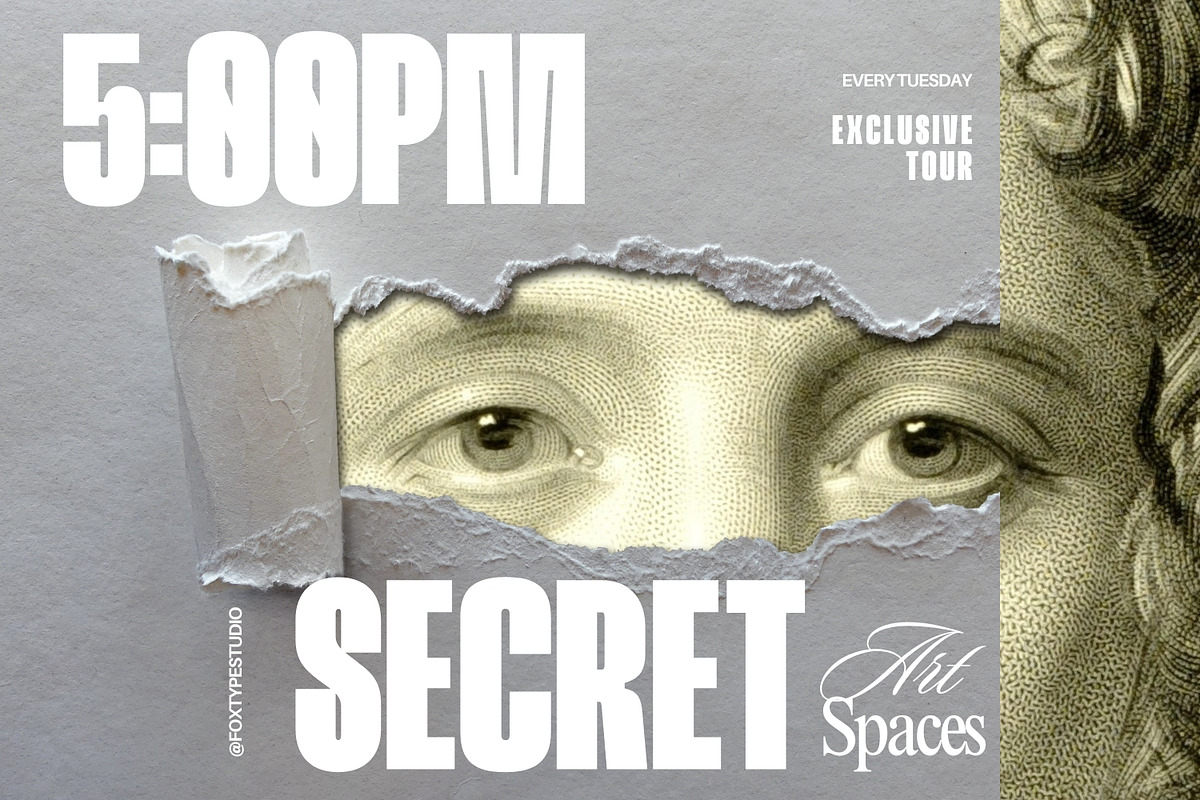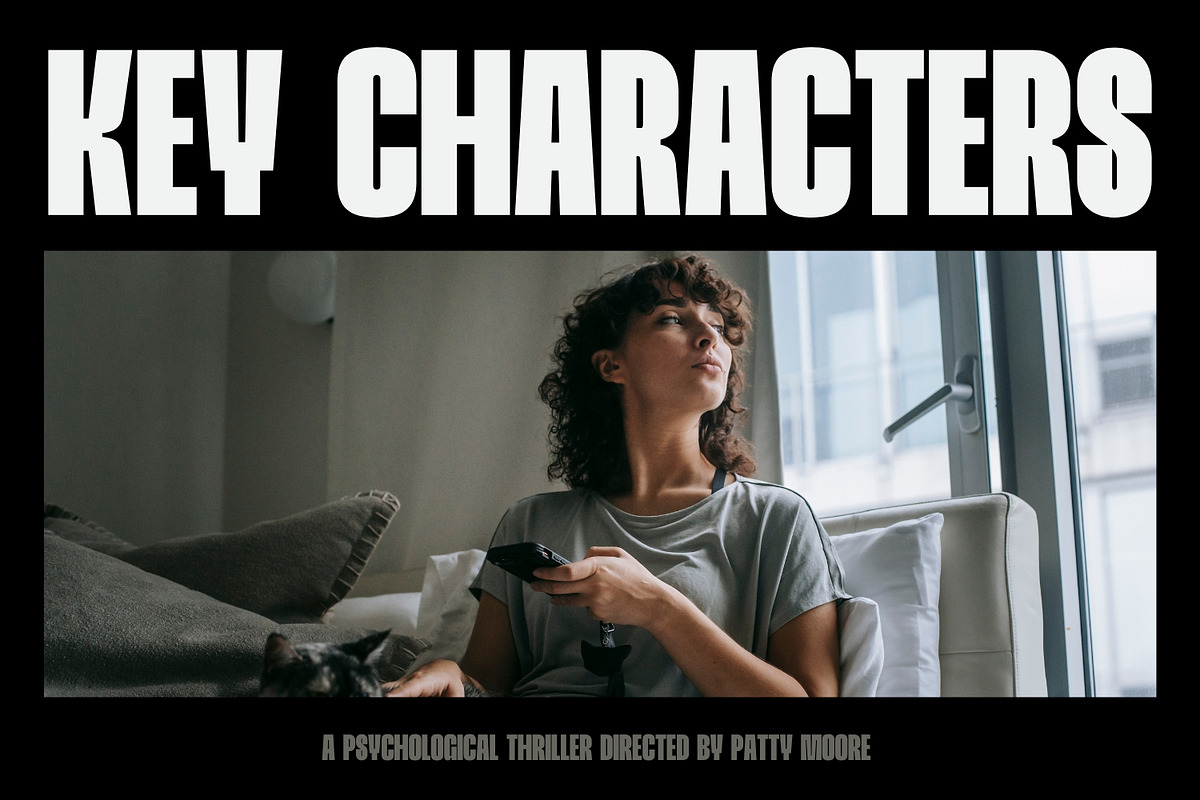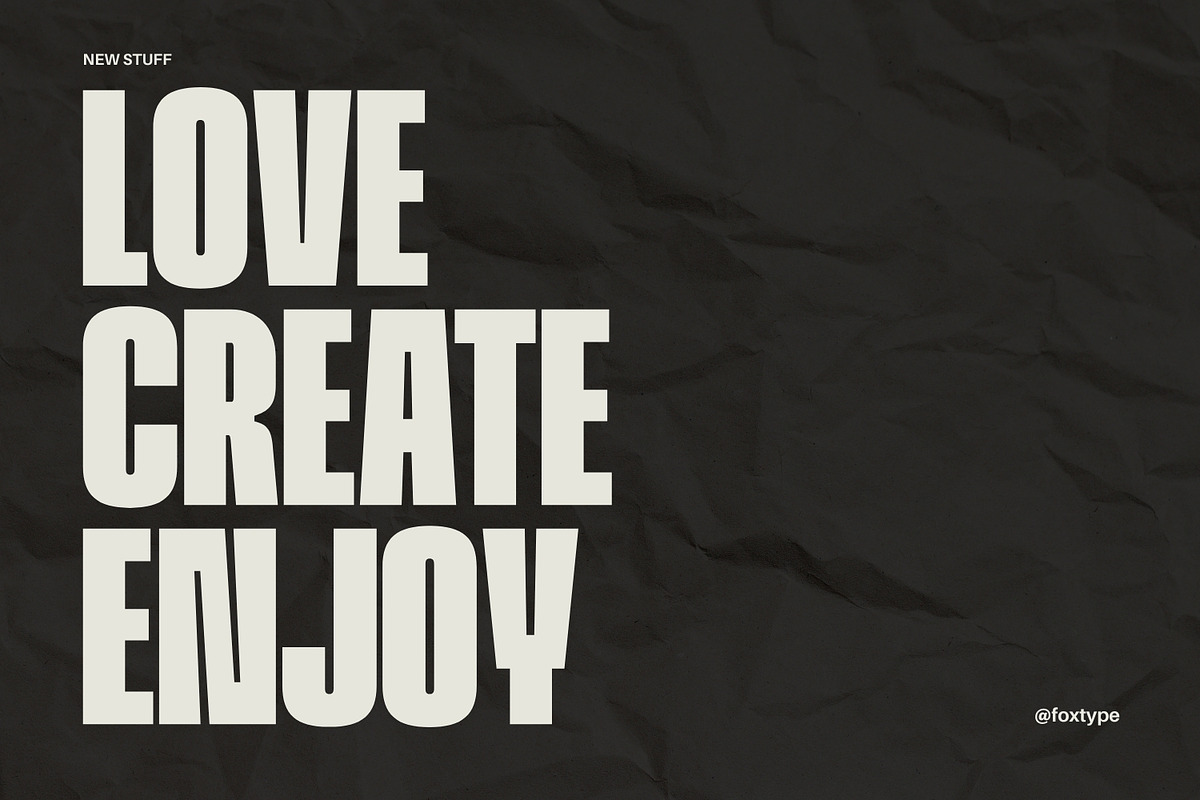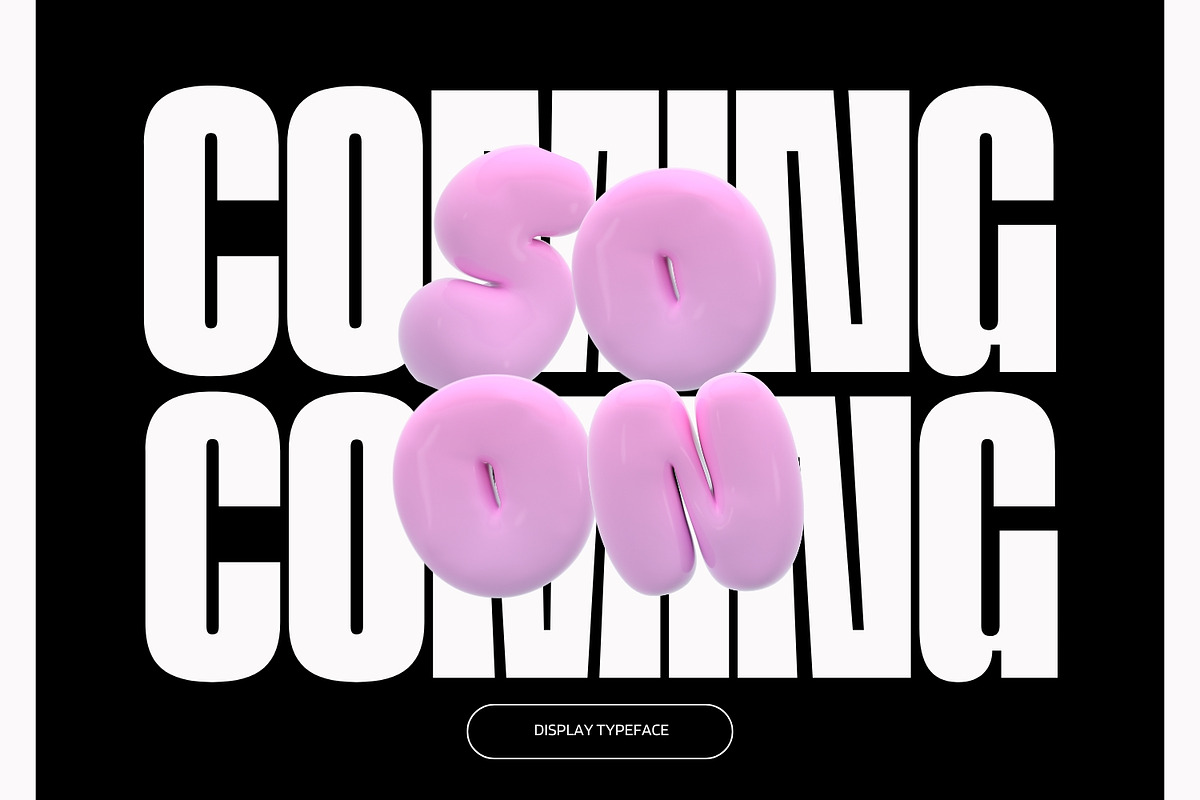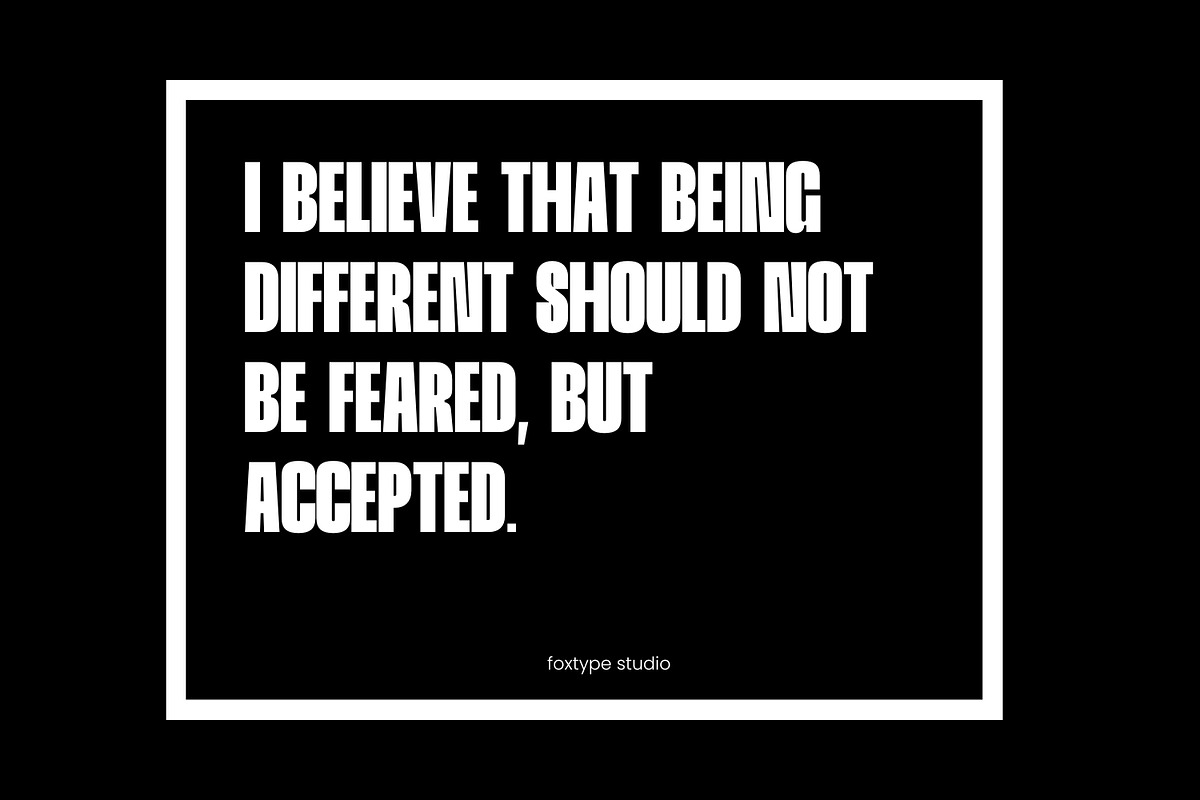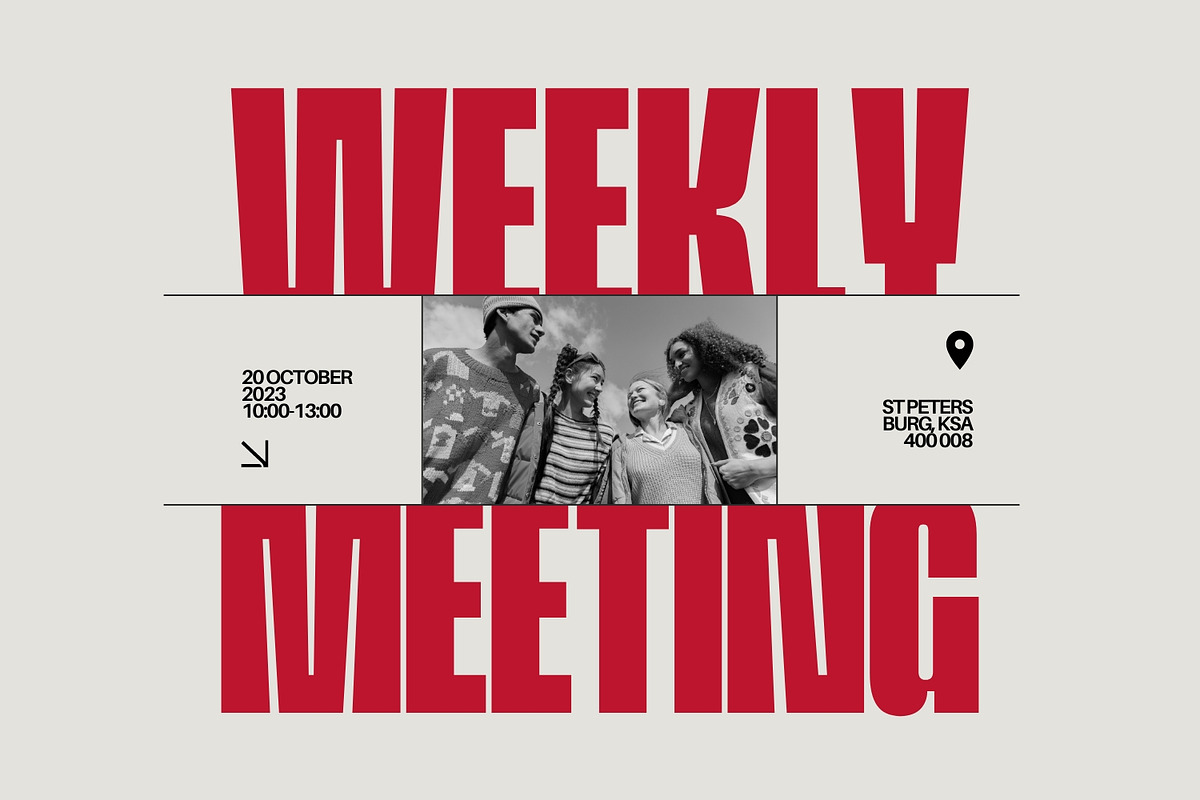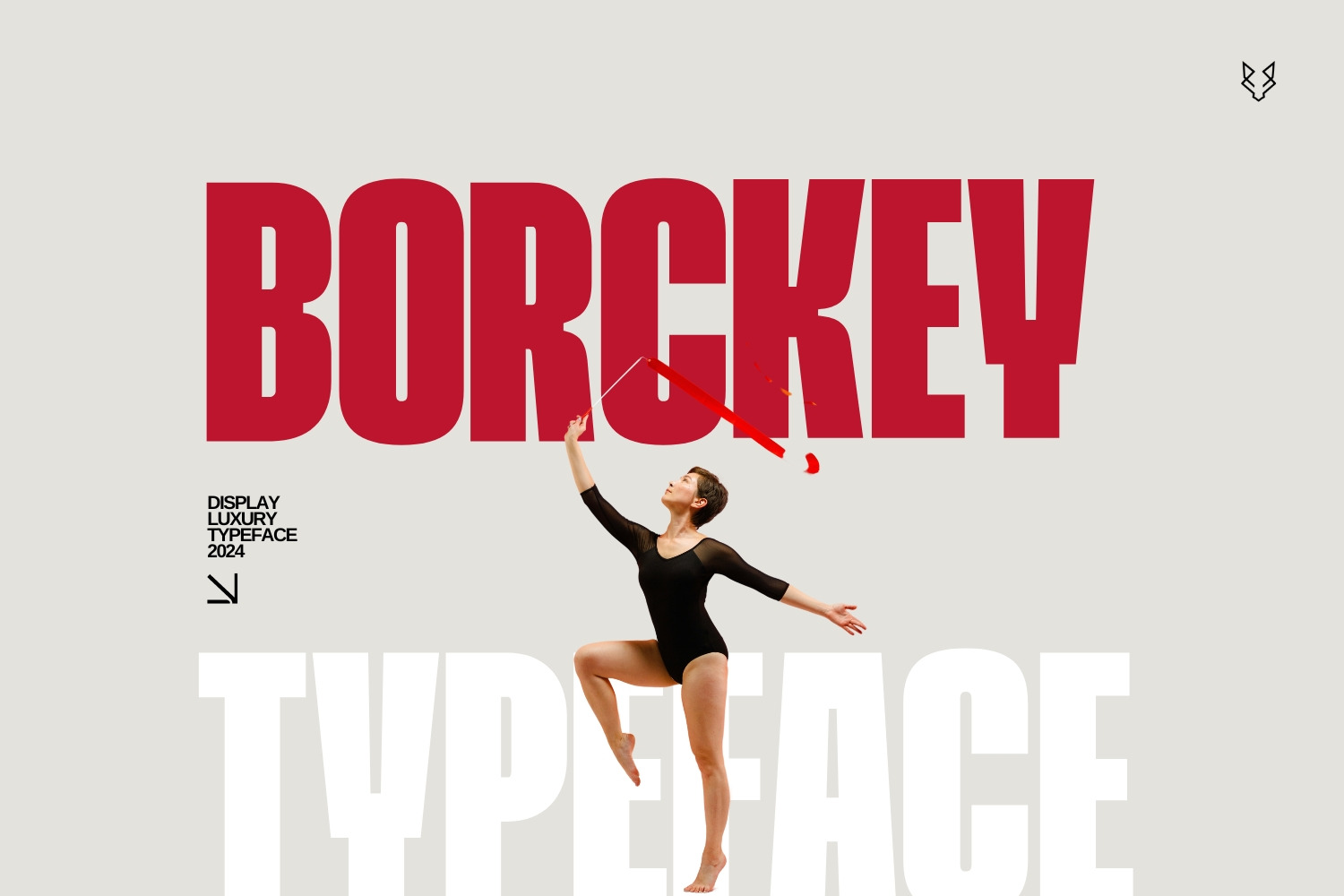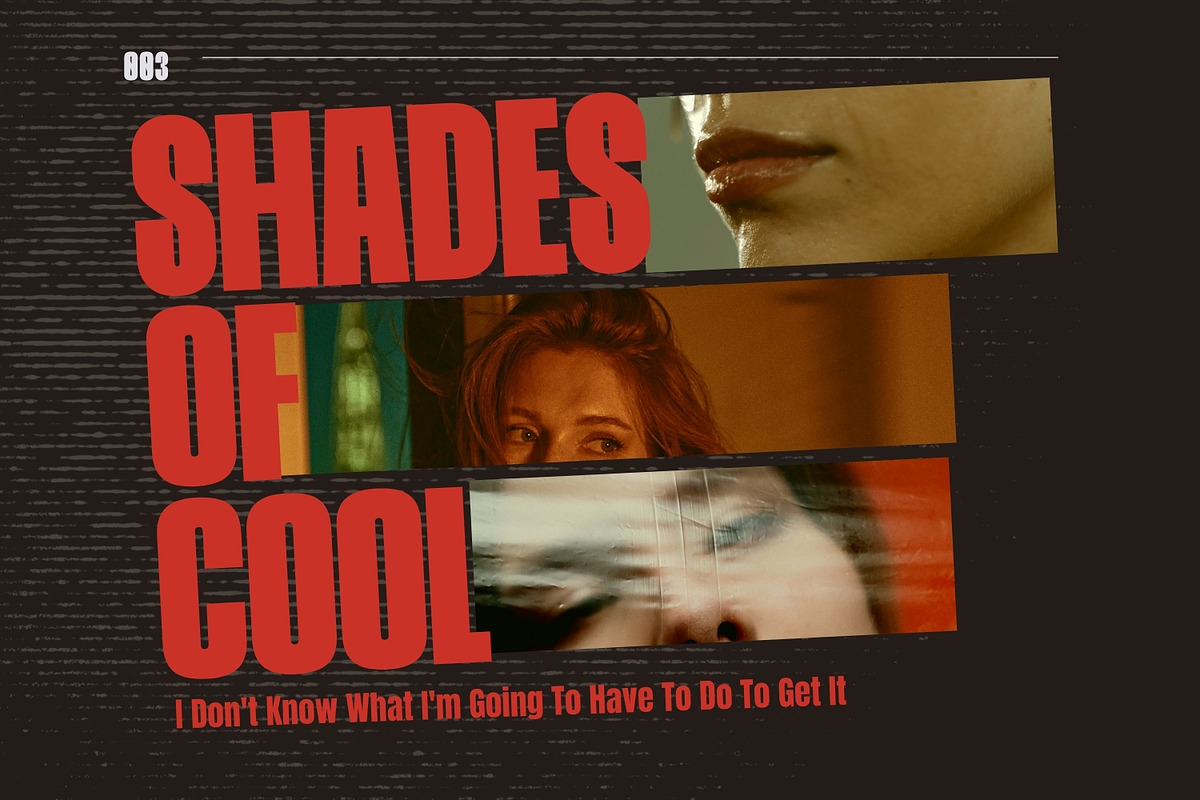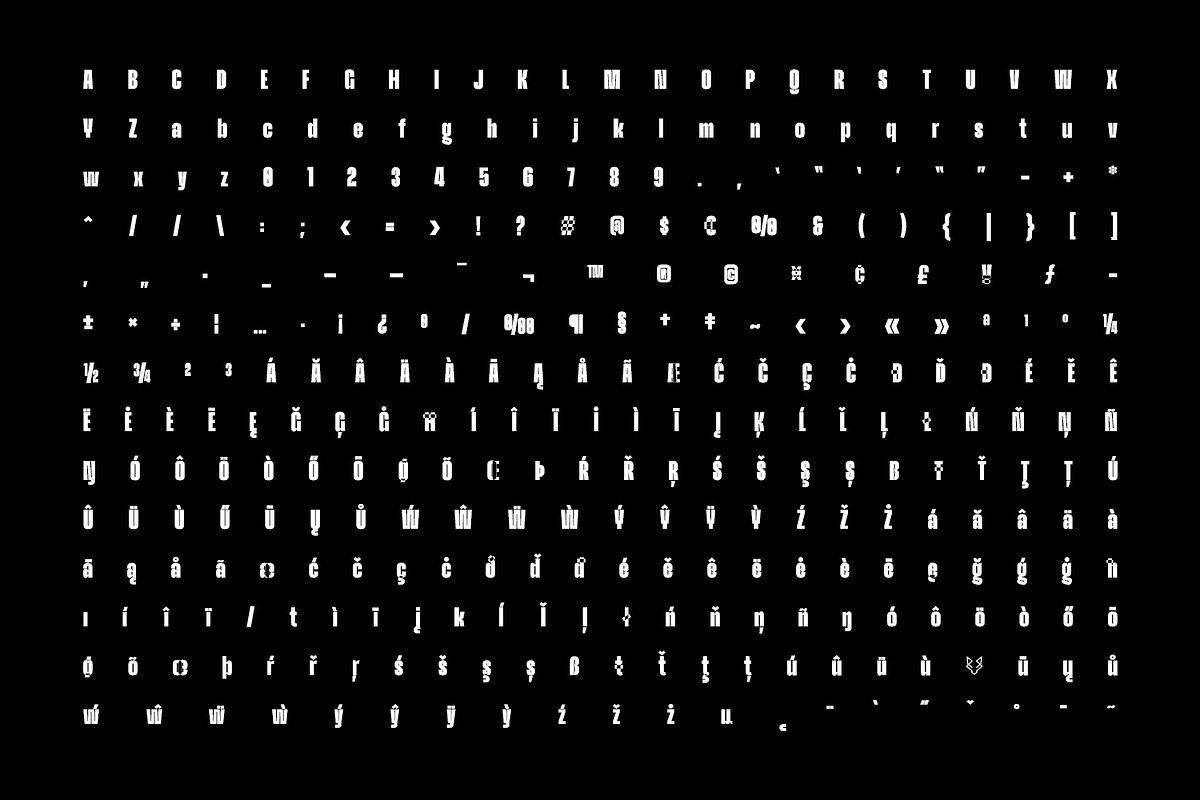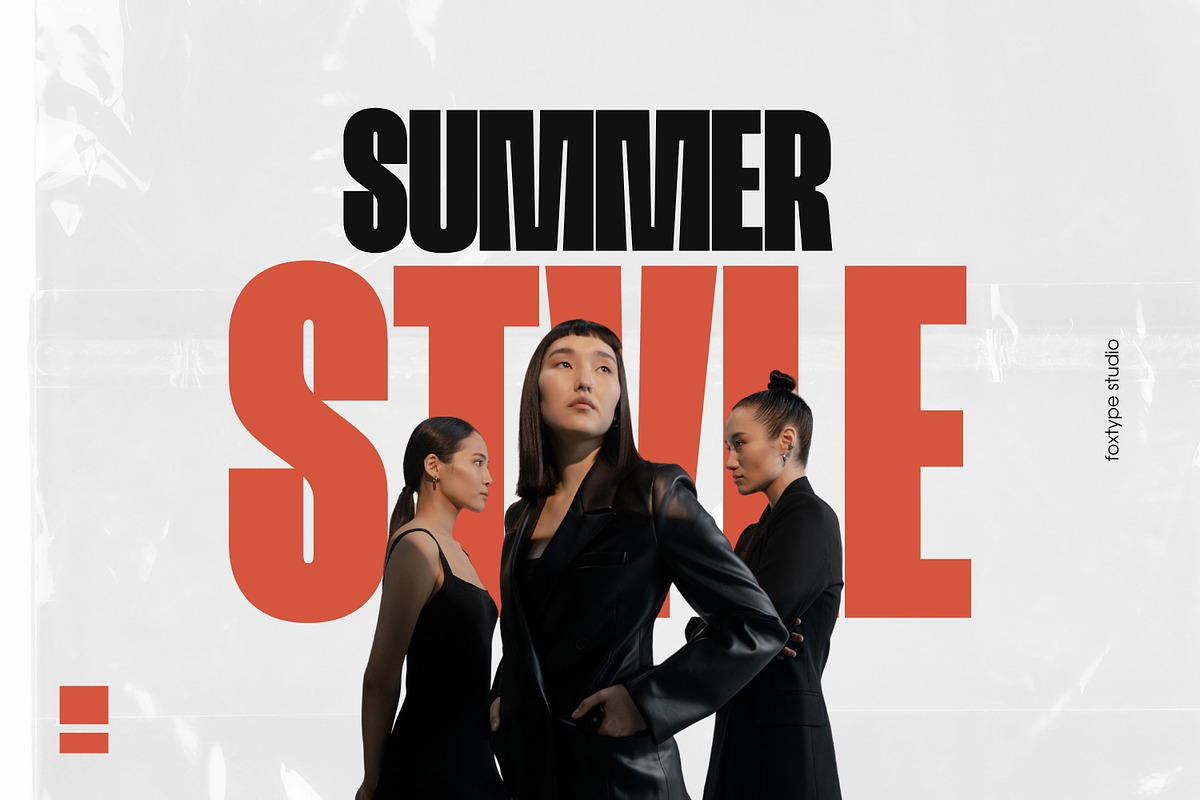
Borckey Display Typeface
Borckey Display is a meticulously crafted font, designed to make a bold statement in your creative projects. Ideal for posters, magazine covers, headlines, and more, this font brings a modern and dynamic touch to any design.
- Neat and Precise: Each character is carefully designed to ensure clarity and visual appeal.
- Versatile Usage: Perfect for creating eye-catching posters, striking magazine covers, and attention-grabbing headlines.
Transform your designs with the distinctive style of Borckey Display, a font that combines elegance and impact seamlessly.